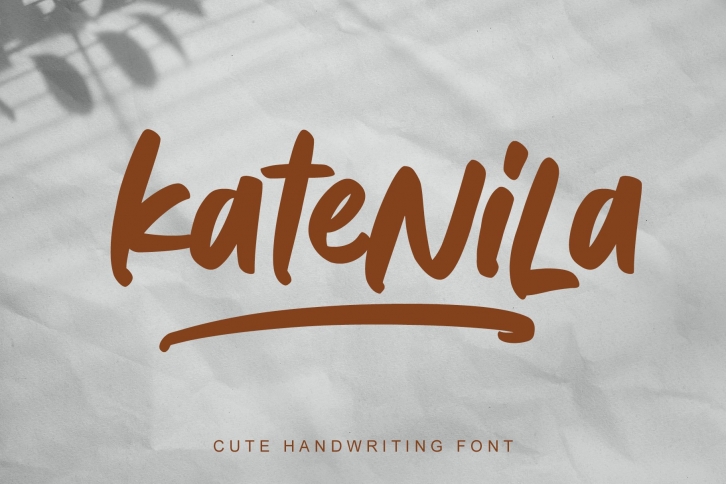
Katenila is a beautiful font that was designed by Arterfak Project. It's a great choice for designers and creatives who need such a font. It was released on September 18, 2020 and the file size is 12.65 MB. Katenila may give a more youthful, expressive and casual look to your project. It is a very beautiful, refined, elegant, and high-quality font.